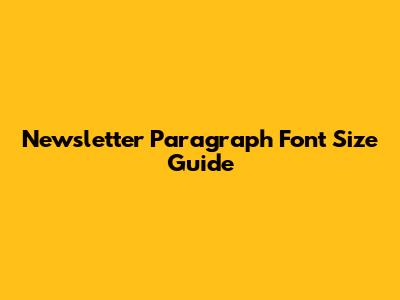
Newsletter Paragraph Font Size Guide
Alright guys, let's dive into the nitty-gritty of making your newsletters look chef's kiss amazing! One of the biggest things that can make or break a newsletter is how easy it is to read, and a huge part of that is the font size for your paragraphs. You don't want your readers squinting at their screens, right? Or worse, bouncing off your email because it feels like a chore to get through. So, what's the magic number? What's the sweet spot for newsletter paragraph font size that keeps everyone engaged and happy?
The Goldilocks Zone: Finding the Perfect Font Size
When we talk about the recommended font size for newsletter paragraphs, we're really looking for that perfect balance – not too big, not too small, but just right. For most digital newsletters, the general consensus among designers and readability experts is to aim for a font size between 14px and 16px. Think of it as the comfortable reading range for the average person on a variety of devices. Why this range? Well, smaller fonts (like 12px or below) can start to look cramped and become difficult to read, especially on mobile devices where screens are smaller. On the flip side, fonts that are too large can make your content feel overwhelming and might even push essential information off the screen, leading to more scrolling than necessary. So, 14px to 16px is your go-to starting point. It’s a safe bet that offers excellent readability without sacrificing precious content real estate. Remember, the goal is to make your content accessible and enjoyable, and font size plays a massive role in achieving that.
Now, I know what some of you might be thinking: "But what about my brand's style?" or "My audience is different!". And you're totally right to consider that! While 14px-16px is the general rule, there are definitely nuances to consider. For instance, if your newsletter is aimed at a more mature audience, you might lean towards the higher end of that spectrum, perhaps even 16px or 17px, to ensure maximum comfort and legibility. On the other hand, if your brand has a very sleek, minimalist aesthetic and you're targeting a younger, tech-savvy crowd who are used to reading on smaller screens, you might get away with 13px or 14px, but I'd still urge caution and suggest testing. However, for the vast majority of newsletters, sticking to that 14px-16px sweet spot is your safest and most effective bet for ensuring your message gets across loud and clear. It’s all about making it effortless for your subscribers to consume your valuable content.
Beyond the Pixels: Factors Influencing Font Size Choice
Guys, choosing the right font size for your newsletter paragraphs isn't just about picking a number out of thin air. There are a few key factors that can really influence your decision and help you nail that perfect readability. Let's break them down, shall we?
First off, your audience is king. Seriously. Who are you talking to? If you're sending out a newsletter for a tech startup targeting Gen Z, they might be perfectly comfortable with slightly smaller text, used to reading on their phones. But if you're running a newsletter for a retirement community or a health and wellness brand targeting an older demographic, you'll definitely want to bump that font size up. Think about their potential vision needs and their general comfort level with digital content. For these groups, 16px or even 17px might be the ideal choice for your newsletter paragraph font size. It's all about meeting them where they are and making your content as welcoming as possible.
Secondly, the font face itself plays a massive role. Not all fonts are created equal, my friends! Some fonts, especially those with a more delicate or condensed style, might appear smaller even at the same pixel size as a bolder, wider font. Conversely, a very robust font might feel larger and more imposing. So, if you're using a font that's known to be on the smaller side visually (like some script fonts or very thin sans-serifs), you might need to increase the pixel size slightly to compensate. For example, if your chosen font looks a bit too petite at 14px, try bumping it up to 15px or 16px to achieve the same perceived size as a more standard font at 14px. Always test your chosen font at different sizes to see how it looks and feels before committing.
Third, and this is a biggie, the device your subscribers are using. We live in a mobile-first world, guys! A huge percentage of emails are opened on smartphones. What looks great on your giant desktop monitor might be microscopic on an iPhone. This is why the 14px-16px range is so often recommended – it tends to scale reasonably well across different screen sizes. However, it's crucial to test your newsletter on multiple devices. Use your email marketing platform's preview tools, send test emails to yourself, and check them on your phone, tablet, and computer. Pay close attention to how the paragraph text renders. Does it look clear? Is there enough white space around it? Adjusting your font size based on these real-world tests is essential for guaranteeing a great experience for everyone, no matter their device.
Finally, consider the context and purpose of your newsletter. Is it a quick update with lots of bullet points, or a long-form piece with detailed narratives? For highly scannable content, slightly smaller text might be acceptable, but for longer, more engaging articles, readability is paramount, and a comfortable 15px or 16px font size is your best friend. Always prioritize making your content easy to digest. That's the name of the game, right?
Optimizing for Readability: Tips and Tricks
So, we've talked about the ideal font sizes and the factors that influence them, but how do we really make sure our newsletter paragraphs are a joy to read? It's not just about the size, guys; it's about the whole package. Let's get into some actionable tips to optimize readability and keep those subscribers hooked!
First and foremost, use a legible font. This might sound obvious, but seriously, some fonts are just not designed for extensive reading. Stick to clean, classic fonts like Arial, Helvetica, Georgia, Times New Roman, or Open Sans. Sans-serif fonts (like Arial or Open Sans) are generally preferred for digital screens as they tend to be cleaner and easier to read than serif fonts (like Times New Roman), although a well-chosen serif can also work beautifully. The key is clarity. Avoid overly decorative, script, or condensed fonts for your main body text. These can look cool as headings, but for paragraphs, they're a readability nightmare. Legibility is paramount when selecting your font for newsletter paragraphs.
Next up: line height (or leading). This is the space between lines of text. Too little space, and the text looks cramped and hard to follow. Too much, and it can feel disconnected and airy. For a paragraph font size between 14px and 16px, a good rule of thumb for line height is 1.4 to 1.6 times the font size. So, if your font is 14px, aim for a line height of around 20px to 22px (1.4 x 14 = 19.6, 1.6 x 14 = 22.4). If your font is 16px, aim for 22px to 25px. This creates breathing room between lines, making it much easier for the eye to track from one line to the next. Adequate line height is crucial for comfortable reading.
Then there's line length. Even with the perfect font size and line height, if your lines of text are too long, readers will lose their place. Aim for around 45-75 characters per line for optimal readability. This means you might need to adjust your email template's layout or content width to ensure your paragraphs aren't stretching across the entire screen. Shorter, more digestible lines of text are significantly easier to read and process, especially on mobile devices. Breaking up large blocks of text with shorter line lengths is a smart move.
Don't forget about contrast. Ensure there's a strong contrast between your text color and your background color. Black text on a white background is classic for a reason – it offers excellent contrast. Avoid light grey text on a white background, or dark blue text on a black background, unless you really know what you're doing and have tested it extensively. High contrast makes your text pop and prevents eye strain.
Finally, use white space strategically. White space (or negative space) is your best friend! Use it to separate different sections, break up long paragraphs, and frame your content. Well-placed white space makes your newsletter look cleaner, more professional, and less intimidating. It guides the reader's eye and improves the overall aesthetic appeal. Embrace white space to enhance your newsletter's design and readability.
Testing, 1-2-3!
Look, guys, the absolute best way to figure out the recommended font size for your newsletter paragraphs is to test it! What works for one newsletter might not work for another. Your audience, your brand, your content – they all matter. So, here’s the game plan:
- Start with the recommended range: Pick a font size between 14px and 16px. Choose a legible font.
- Set your line height: Aim for 1.4 to 1.6 times your font size.
- Send test emails: Send your newsletter draft to yourself and colleagues.
- View on multiple devices: Check how it looks on various smartphones (iOS and Android), tablets, and desktop email clients (Outlook, Gmail, Apple Mail).
- Ask for feedback: Get opinions from people who represent your target audience. Ask them specifically about readability.
- Analyze engagement: Once you send your actual newsletter, keep an eye on metrics like click-through rates and time spent reading (if your platform offers it). High engagement often correlates with good readability.
By following these steps, you'll gather real-world data on what works best for your specific newsletter. Don't be afraid to iterate! Maybe 14px is perfect for your mobile view but feels a tad small on desktop. Perhaps 16px is great for everyone but makes your headings feel too close in size. Continuous testing and refinement are key to ensuring your newsletter is always a pleasure to read. So go forth, experiment, and make your newsletters shine! Happy emailing!